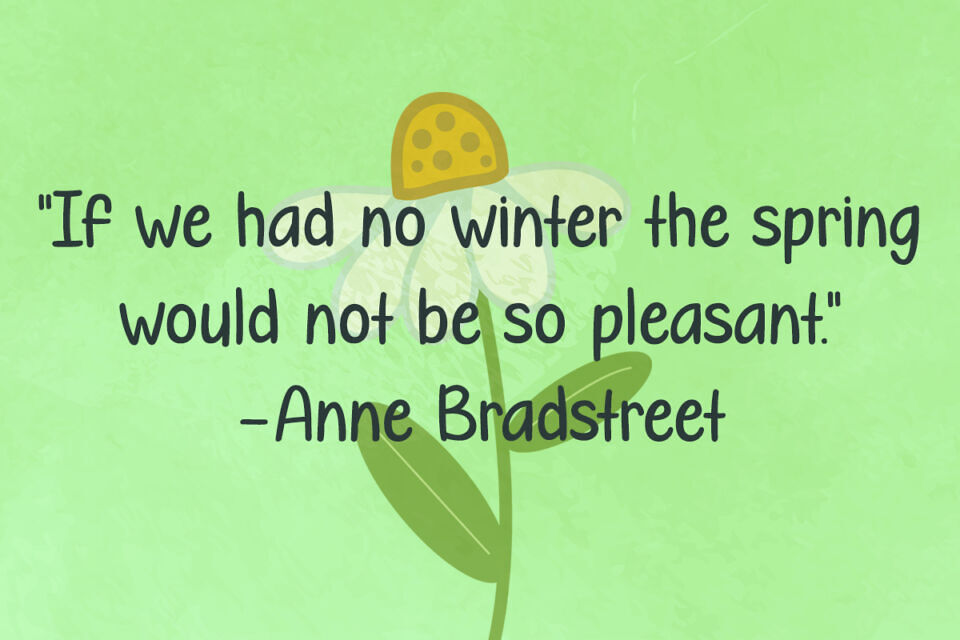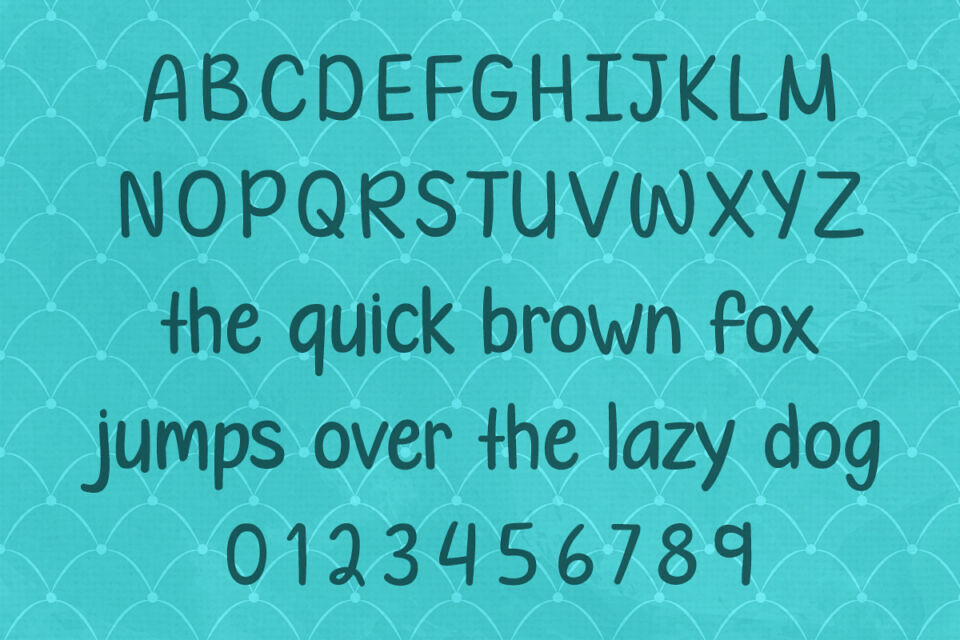
Random Wednesday is a casual, handwritten font with a playful and slightly unpredictable charm. Its natural strokes and relaxed feel make it perfect for personal projects, branding, social media, and more. Add a touch of spontaneity to your designs with Random Wednesday!